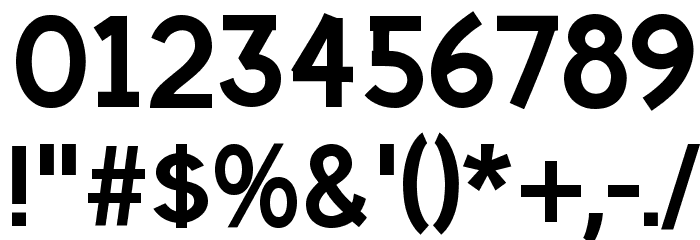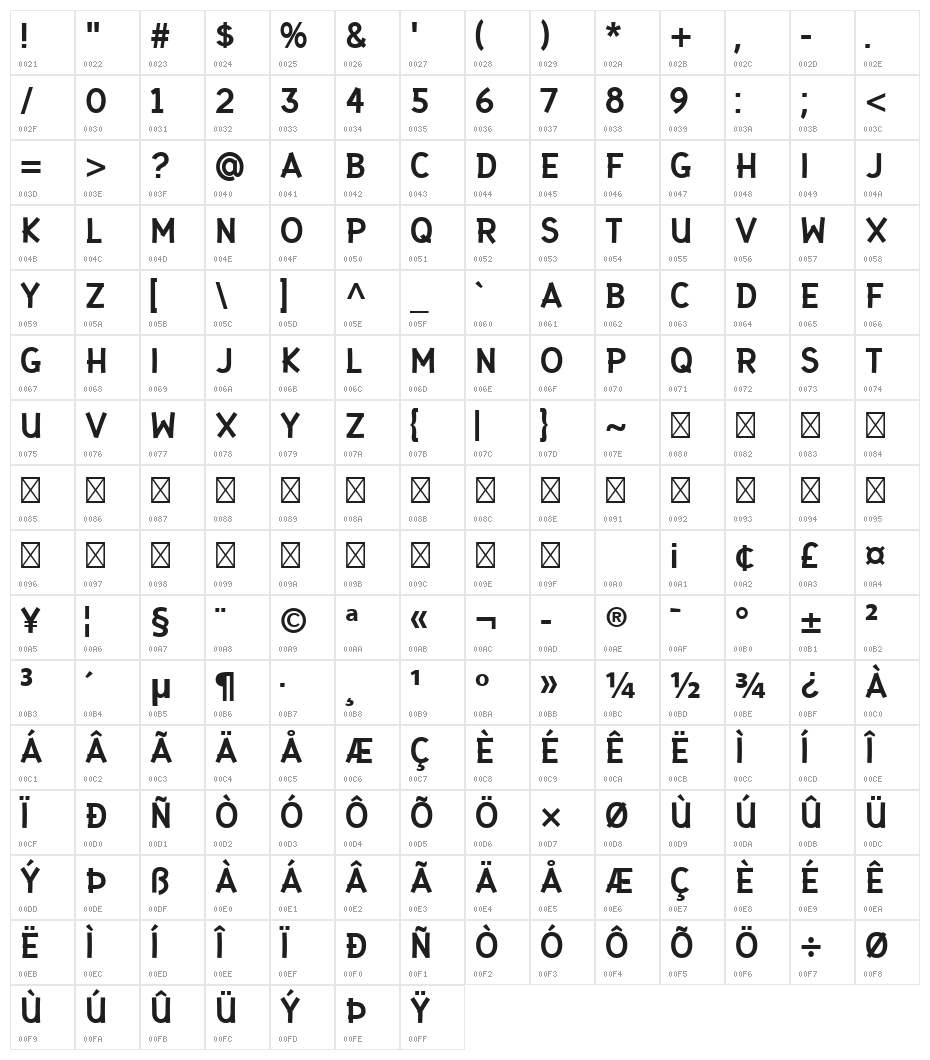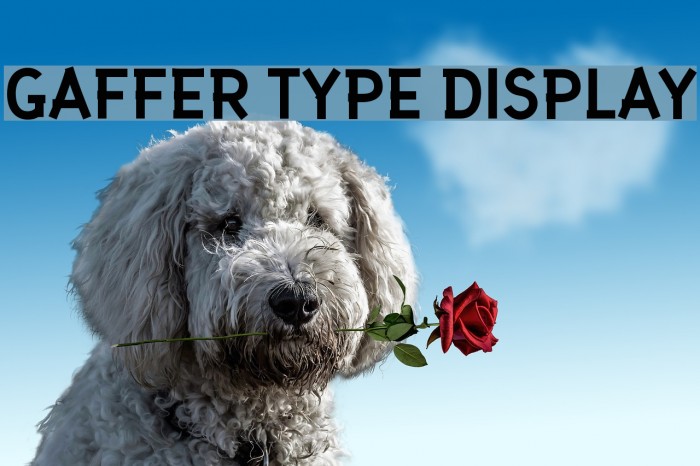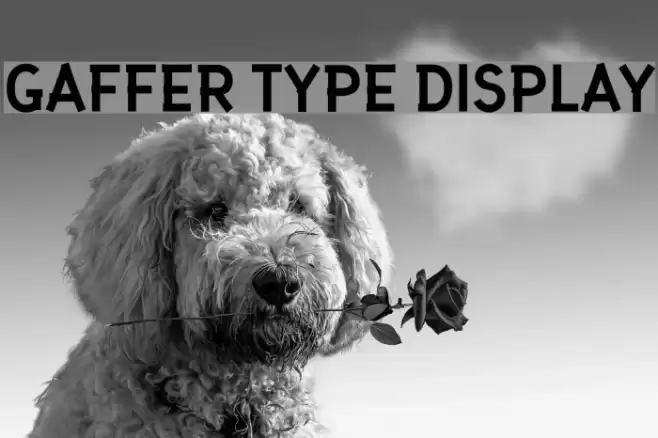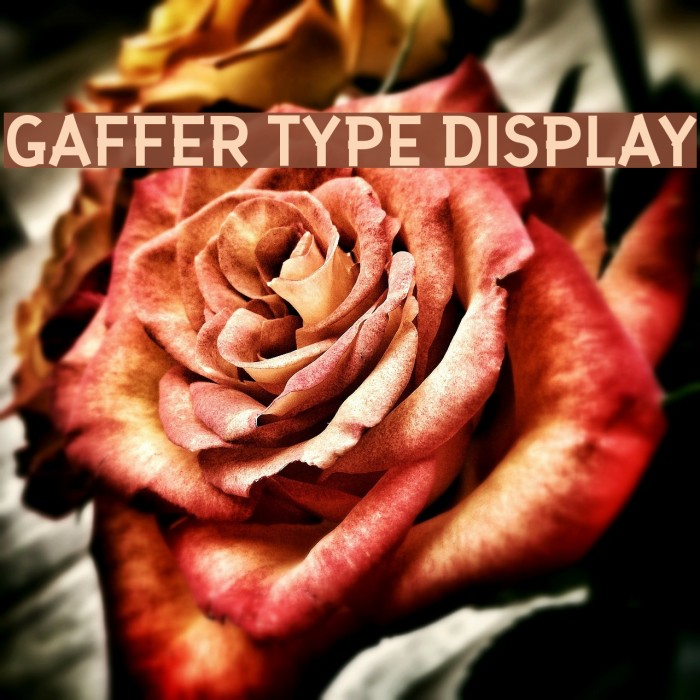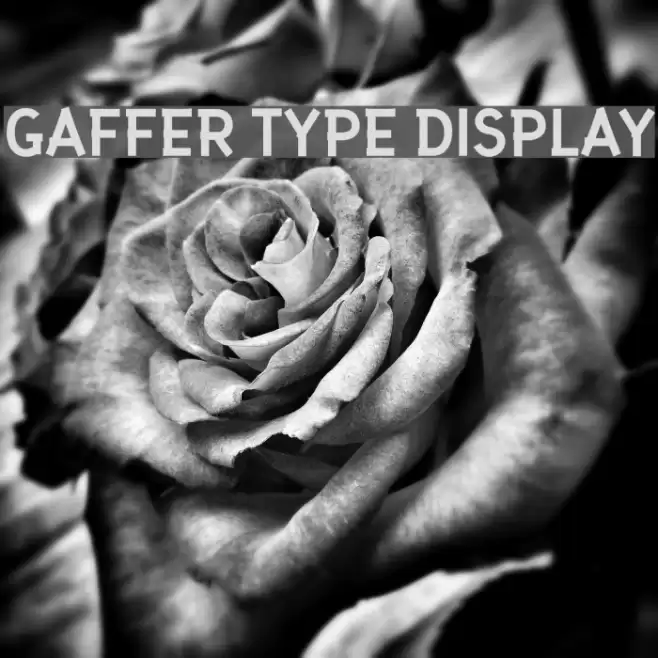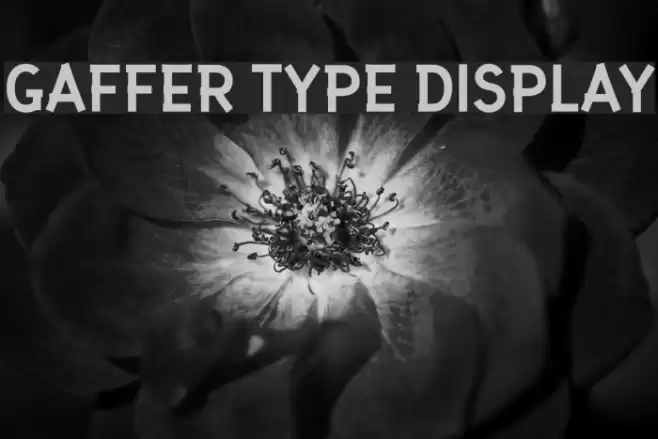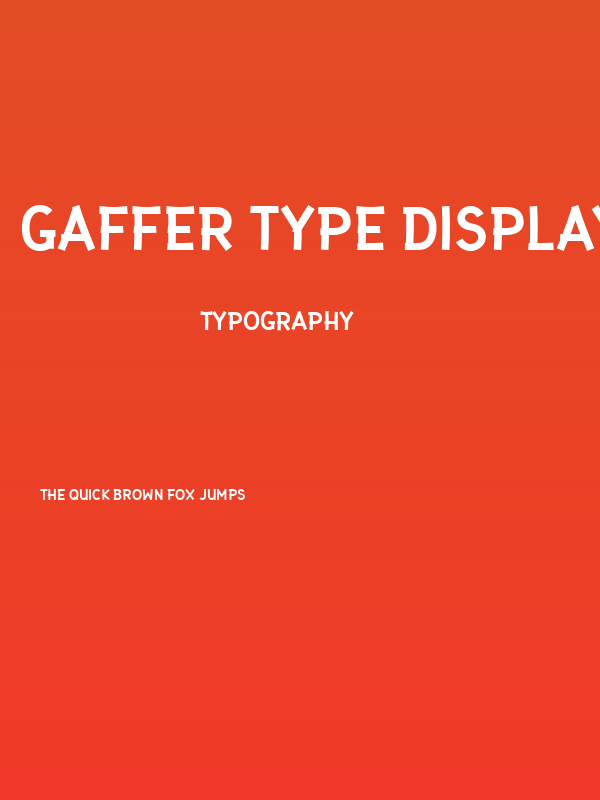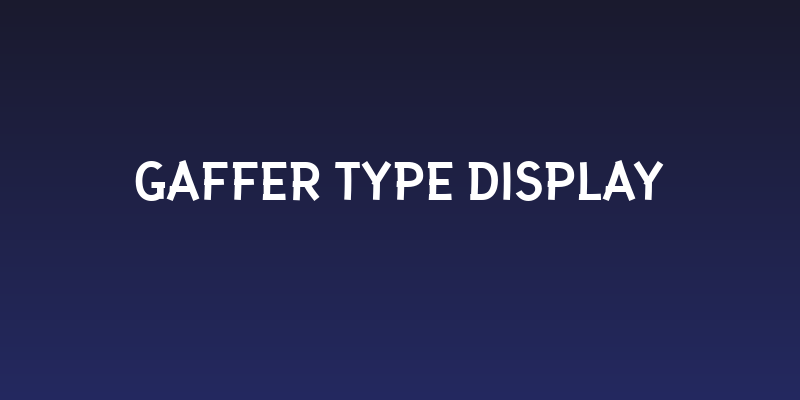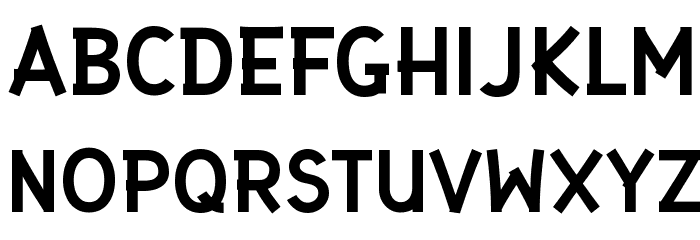
Gaffer Type Display Font
Gaffer Type Display Description
This font features a bold and geometric design, characterized by its strong, clean lines and uniform stroke width. The uppercase letters are prominent and assertive, making a statement with their block-like appearance. The lowercase letters maintain the same geometric style, ensuring consistency across different text cases. Numbers are equally bold, providing excellent readability. Special characters are well-integrated, matching the overall aesthetic. The font's design is modern and versatile, suitable for various applications where clarity and impact are desired.
| Proposed Projects | Ideal for branding, headlines, posters, and any design requiring a modern and impactful typeface. |